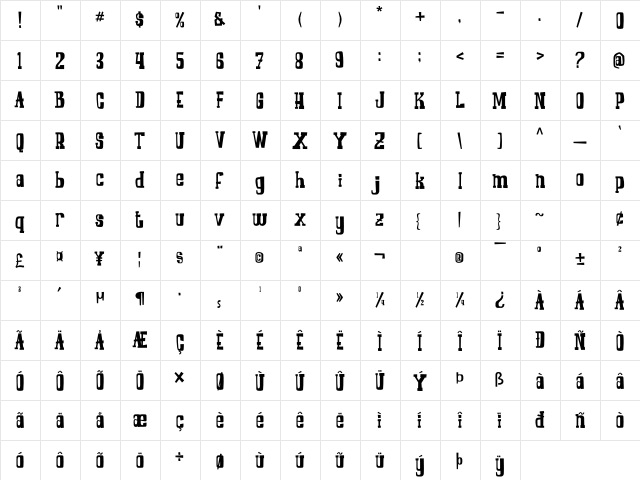
COWBOYZ Regular
| Designer | Unflea |
Design Context for COWBOYZ Typeface
COWBOYZ echoes the hand-painted signage and woodblock typography of the American frontier, with a warm, rugged personality.
Perfect for barbecue restaurants, country music branding, vintage poster design, and rustic packaging.
Font Pairing: Combine COWBOYZ with a simple slab or neutral sans — period-accurate companions reinforce the vintage feel without competing for attention.
Pro Tip: Pair COWBOYZ with aged textures or distressed backgrounds to amplify its vintage personality.